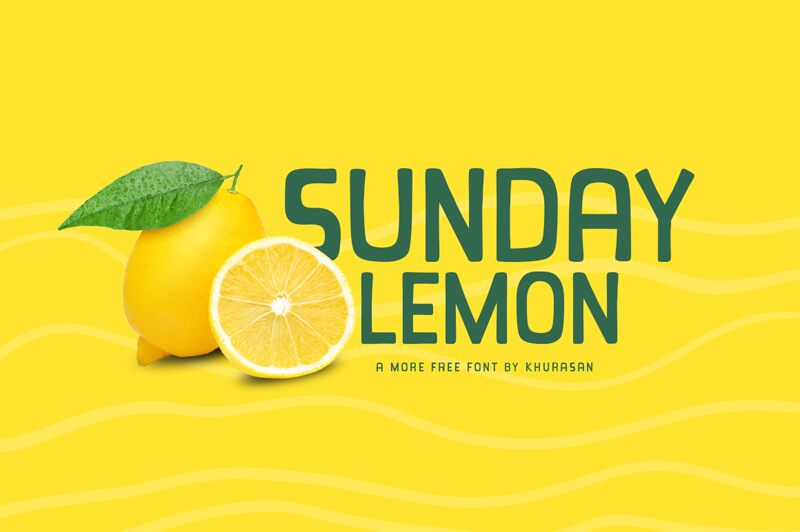
Sunday Lemon
Sunday Lemon, designed by Khurasan, is a delightful display font that adds a playful touch to any project. With its charming cartoon style and semi-light weight, this allcaps font brings a sense of whimsy and cheerfulness.
Perfect for children's books, greeting cards, or even party invitations, Sunday Lemon will surely captivate and bring a smile to your audience's faces.
Let your imagination run wild as you infuse your designs with the lightheartedness of Sunday Lemon.